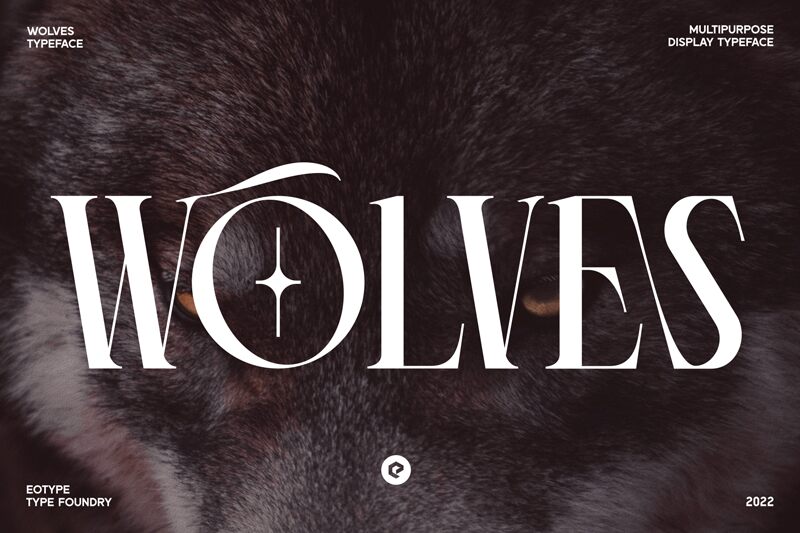
Wolves, a creation by Eotype Type Foundry, is a display font that exudes a unique retro charm. Its semi-light weight and condensed width combine to form an aesthetic that is both sleek and evocative of design trends from a bygone era. The elongated and clean lines of Wolves give it an air of sophistication, while its distinctive character shapes speak to the creativity at its core.
The stylish retro vibe of Wolves positions it as an ideal choice for projects aiming to capture the essence of yesteryear with a modern twist. Whether used for branding, poster design, or editorial headlines, this font brings personality and finesse to the table. Its condensed nature makes it particularly effective for tight spaces without sacrificing readability.
Versatile yet specific in its style, Wolves stands ready to bring a touch of vintage elegance and contemporary coolness to diverse creative endeavors. With its striking appearance, this font will surely leave an indelible mark on your design work.